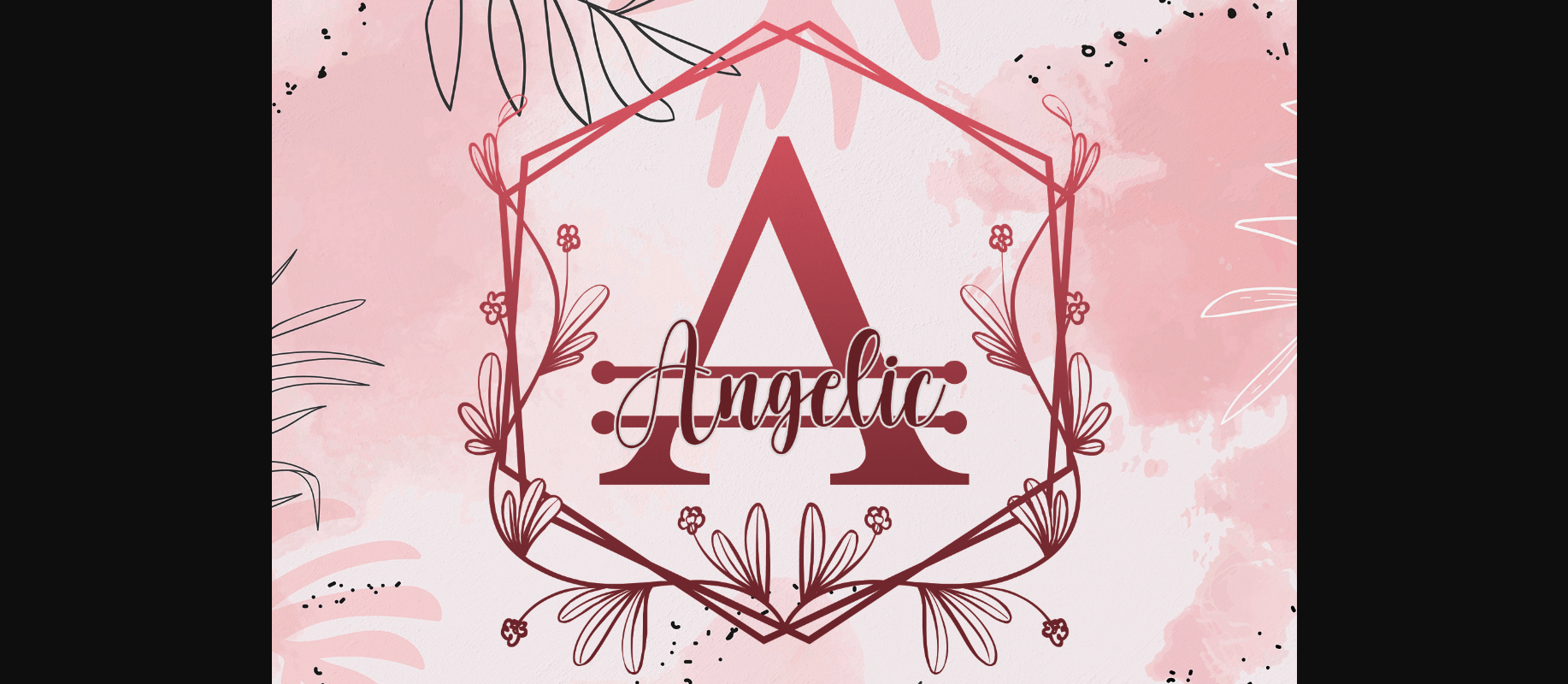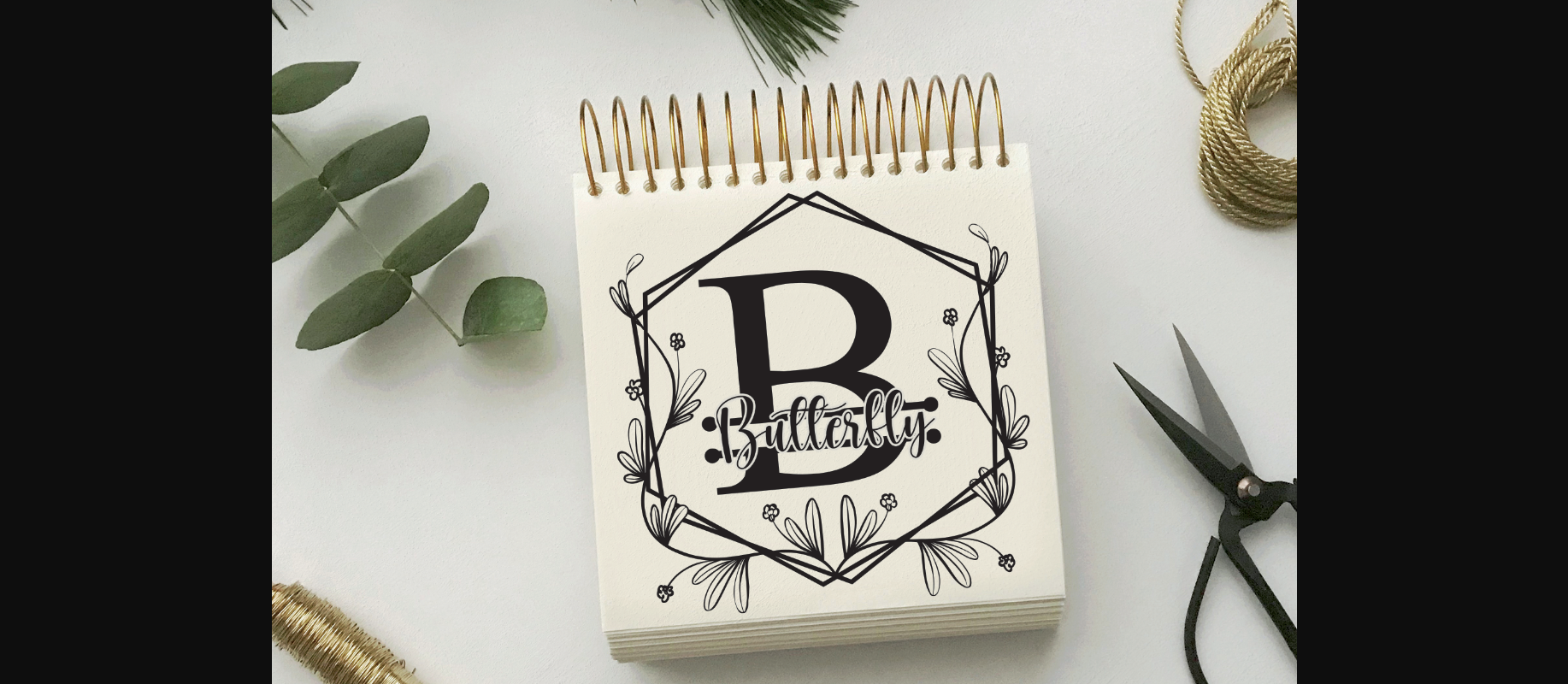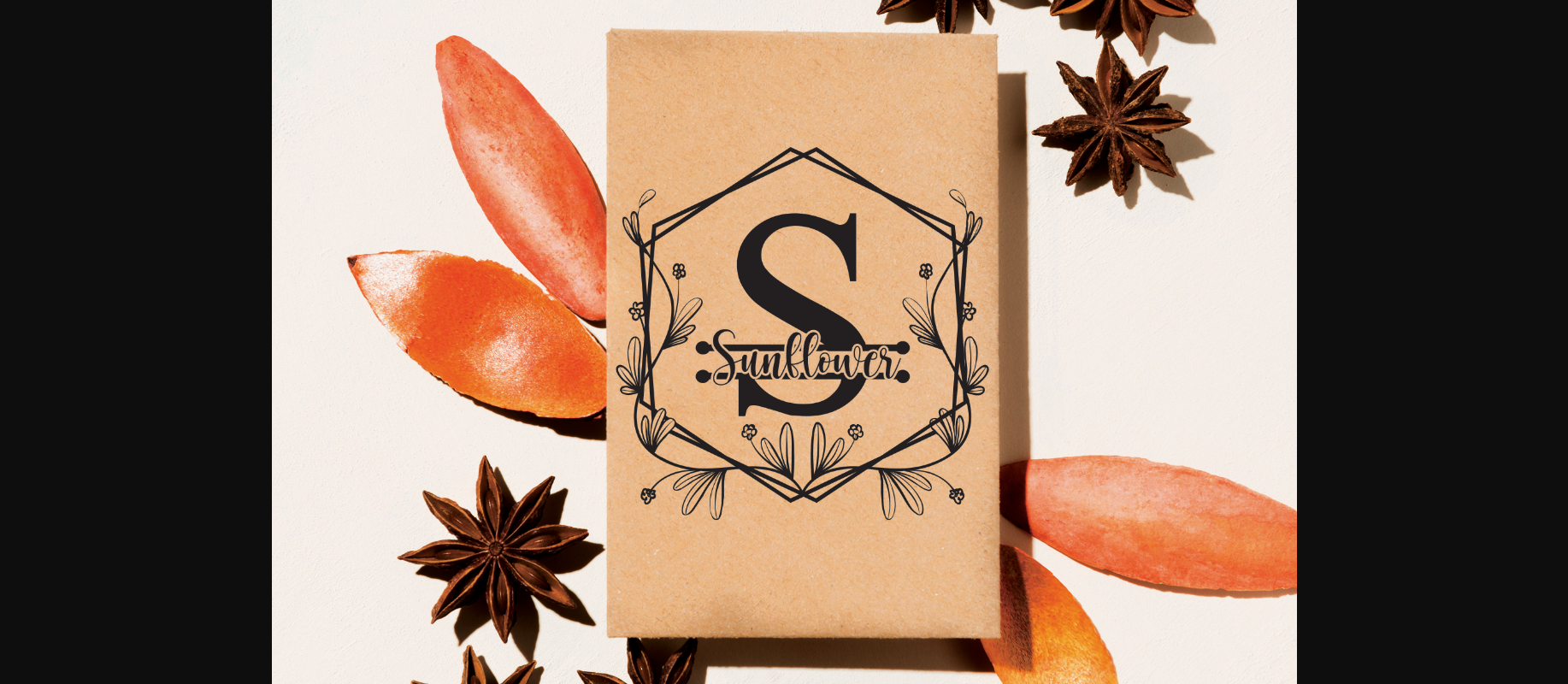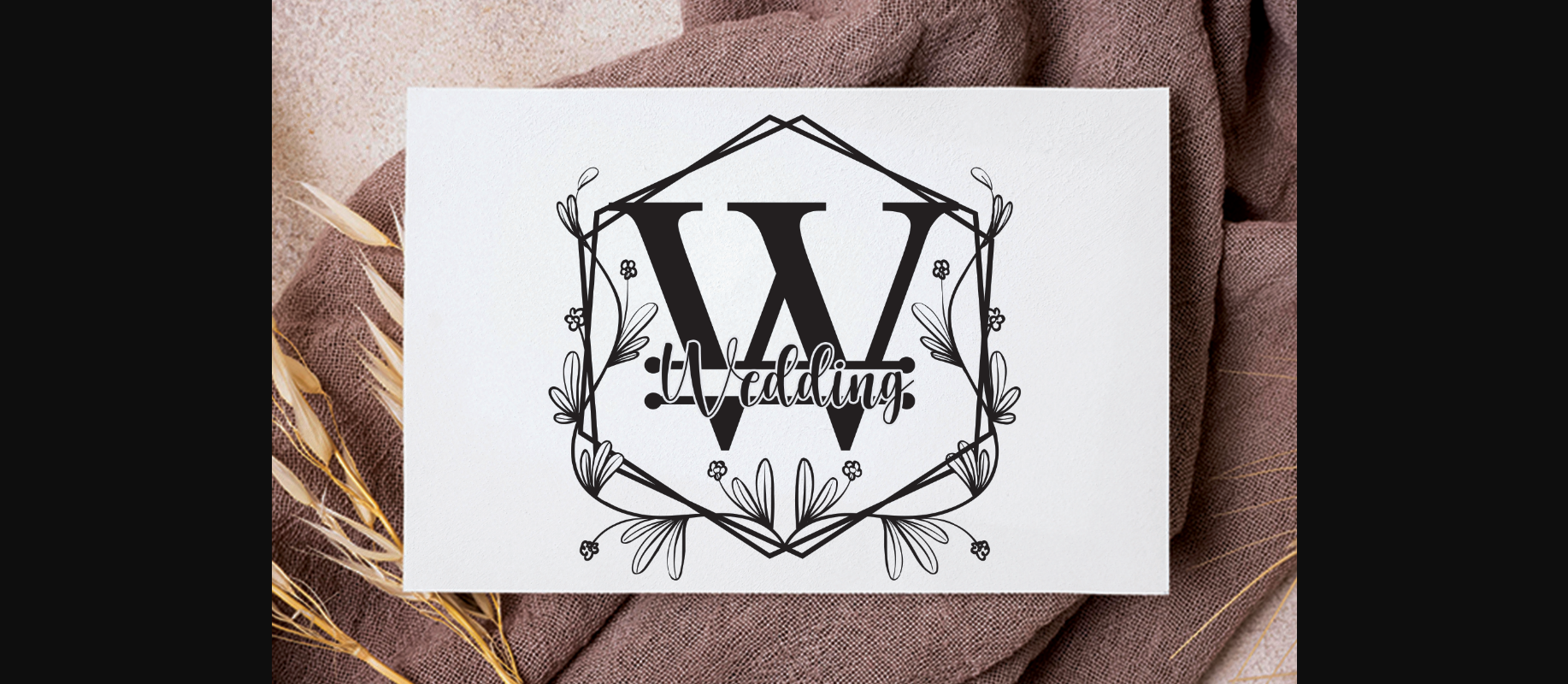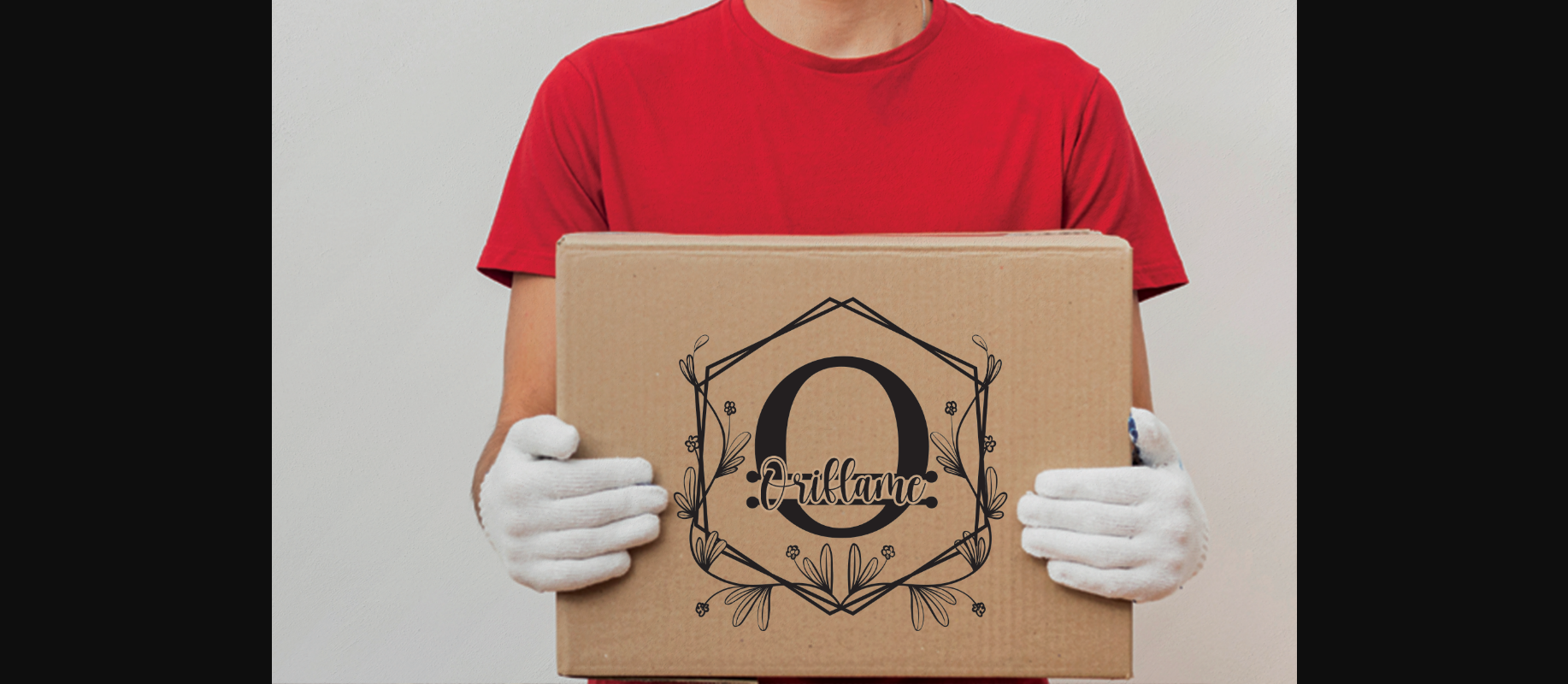
HomeDecorative FontsAngelic Font Decorative Fonts Angelic Font FacebookXPinterestWhatsApp 1 of 7 ... Angelic Font Poster 2... Angelic Font Poster 3... Angelic Font Poster 4... Angelic Font Poster 5... Angelic Font Poster 6... Angelic Font Poster 7... About Angelic Font Angelic is a beautiful and chic decorative font. Add this romantic and lovely looking font to each of your love letters, wedding invitations or favorite design ideas, and you will be astounded by the outcome. DOWNLOAD NOW People also explored Moon Chin Font Astroy Font Strong Coffee Font New Moon Day Font Chaprile Font Kookaburra Font Soettally Font Brotup Font Rainbow Font 310 0 TagsAngelicAngelic Font Previous articleBeauty FontNext articleFloral Wedding Font LEAVE A REPLY Cancel reply Comment: Please enter your comment! Name:* Please enter your name here Email:* You have entered an incorrect email address! Please enter your email address here Website: Save my name, email, and website in this browser for the next time I comment. Personal Use Free Helsinki Personal Use Free Read more about this font Maxwell Personal Use Free Read more about this font Beloved Script Personal Use Free Read more about this font Batik Classic Personal Use Free Read more about this font BLOG 5 Fonts That Will Dominate Design Trends in 2026 5 Fonts for 2026 That Will Dominate Design Trends Typography plays a critical role in visual communication, and as we look ahead to 2026, it’s... Modern Sans-Serif Fonts That Brands Love in 2025 Exploring Font Trends To increase your work productivity, choose the most readable fonts.